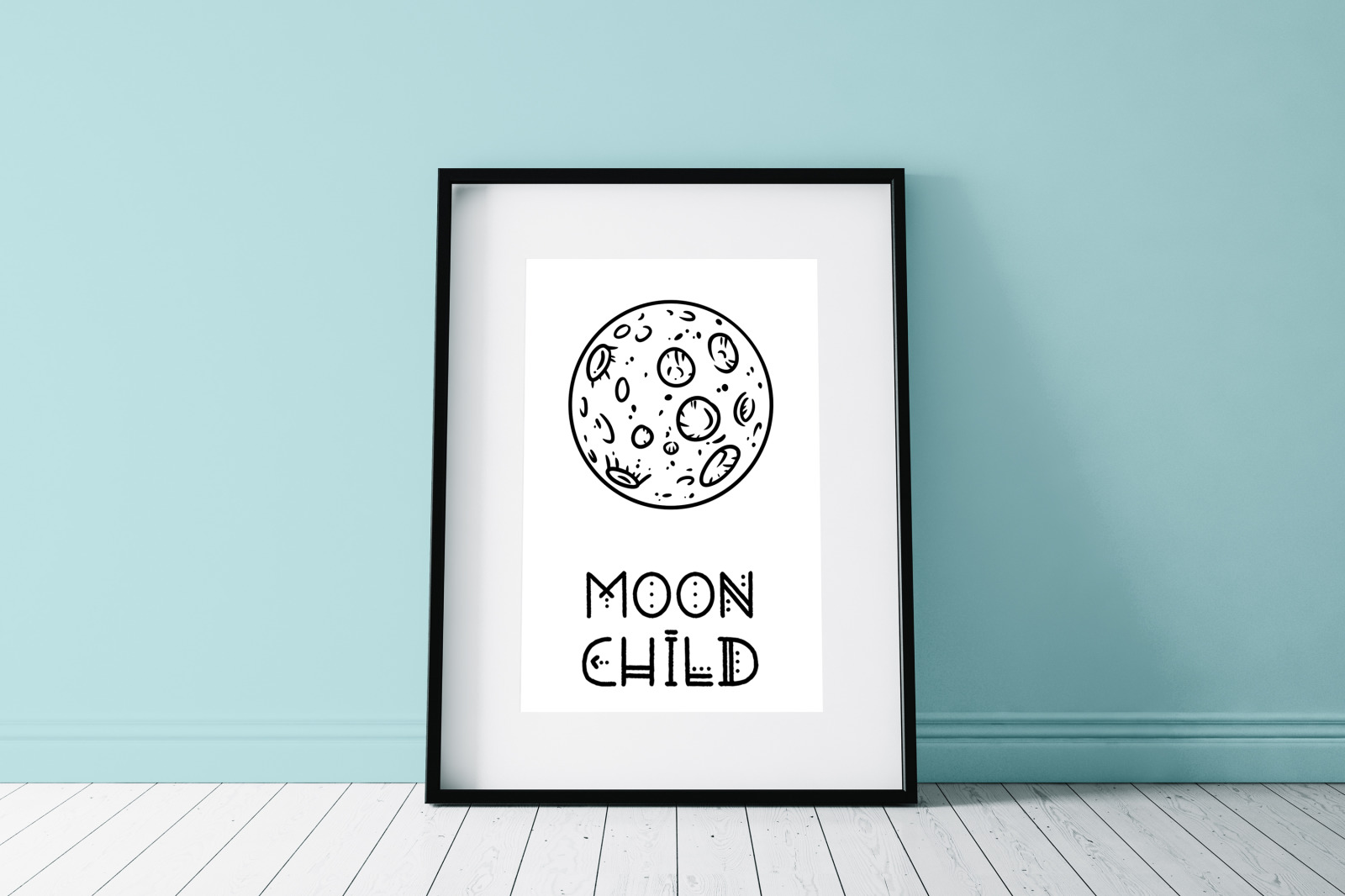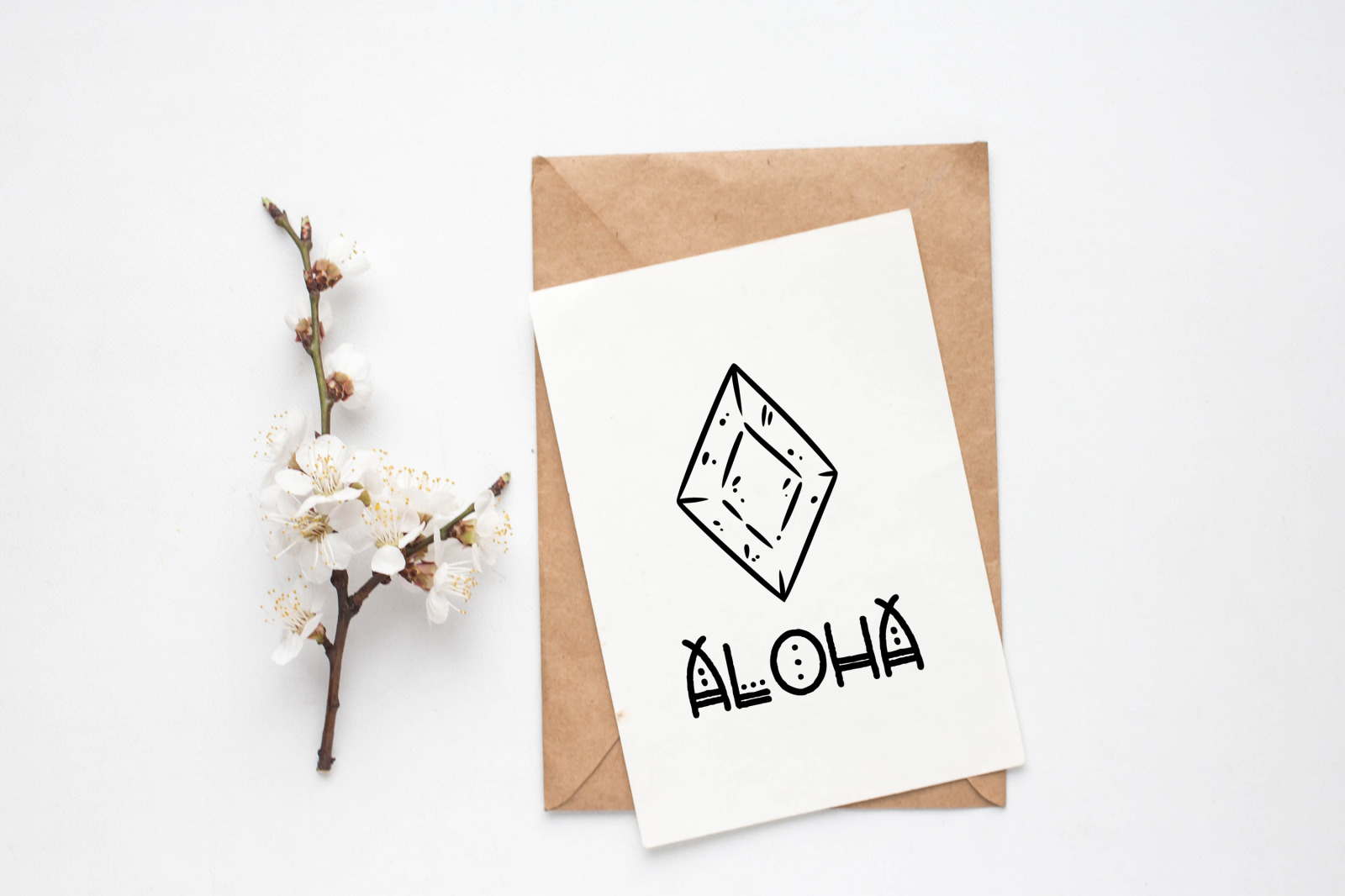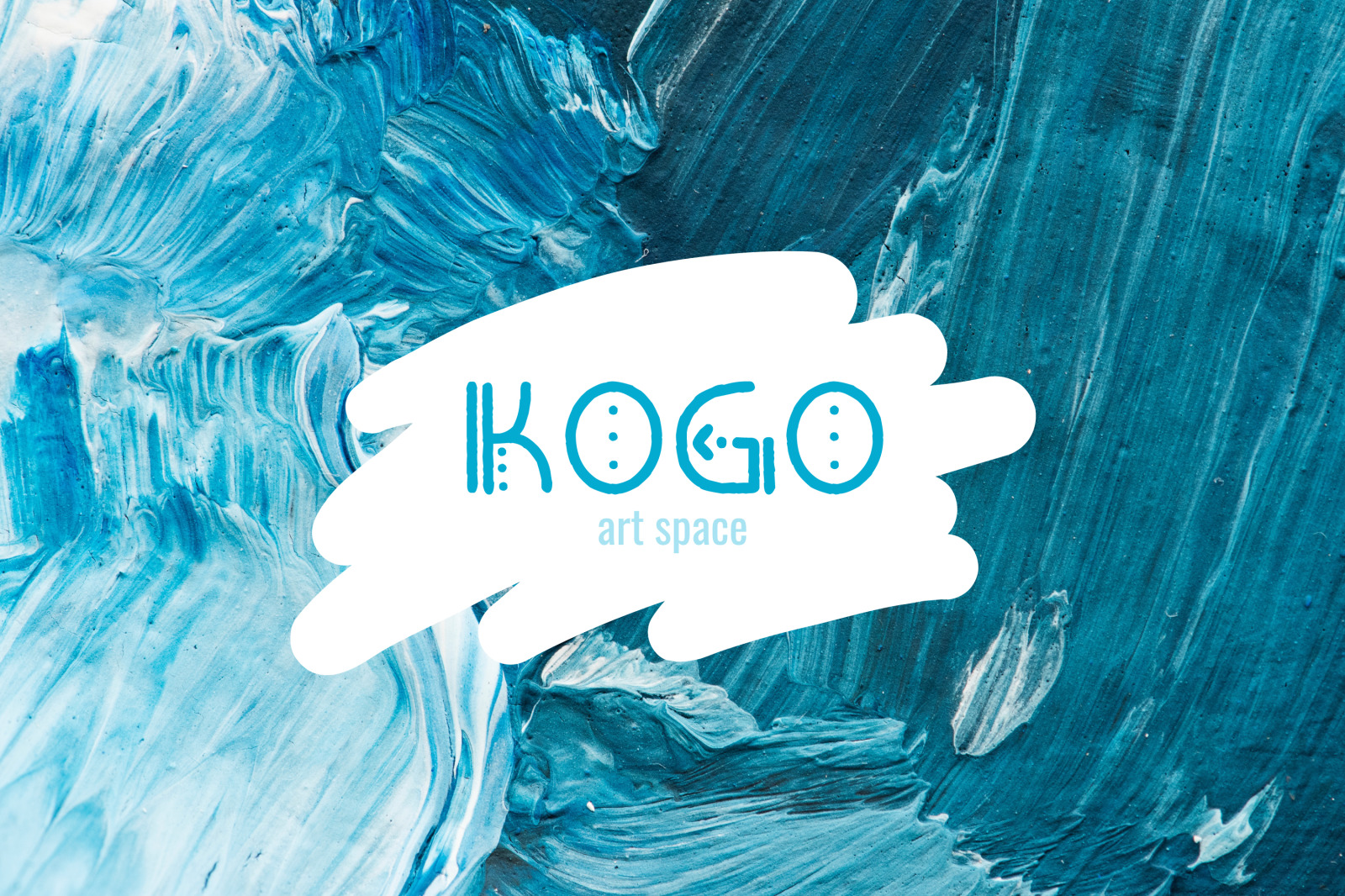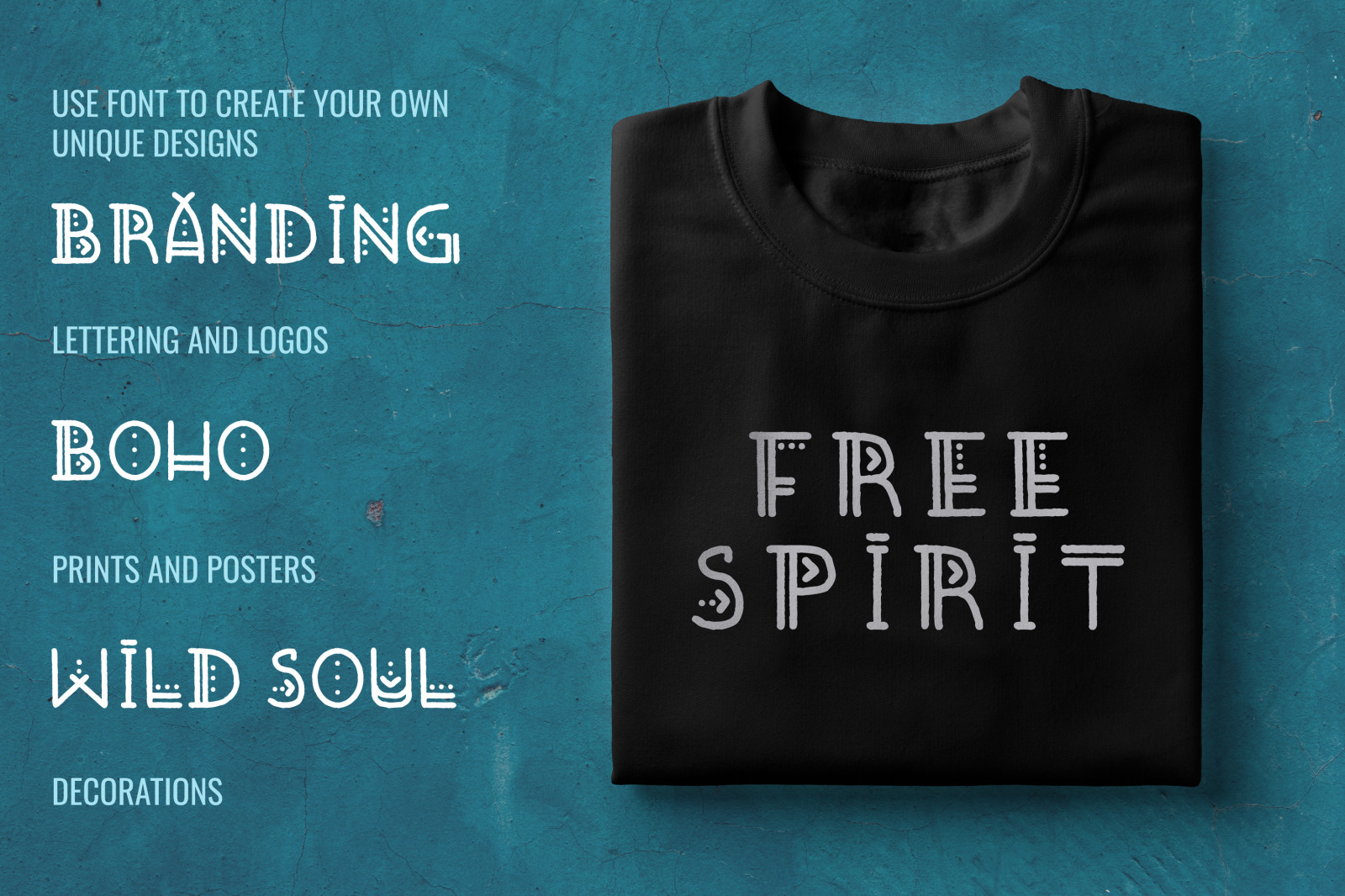
Otomi - Tribal Style Font
This indigenous font was created for your boho designs and tribal ethnic decorations!
Use this product for branding, packaging, monograms, logos, prints, postcards, posters, websites, banners, flyers. Create your own unique art designs using this font!
This is a handwritten geometric font which includes English and Cyrillic characters (uppercase and lowercase), numbers and punctuation symbols.